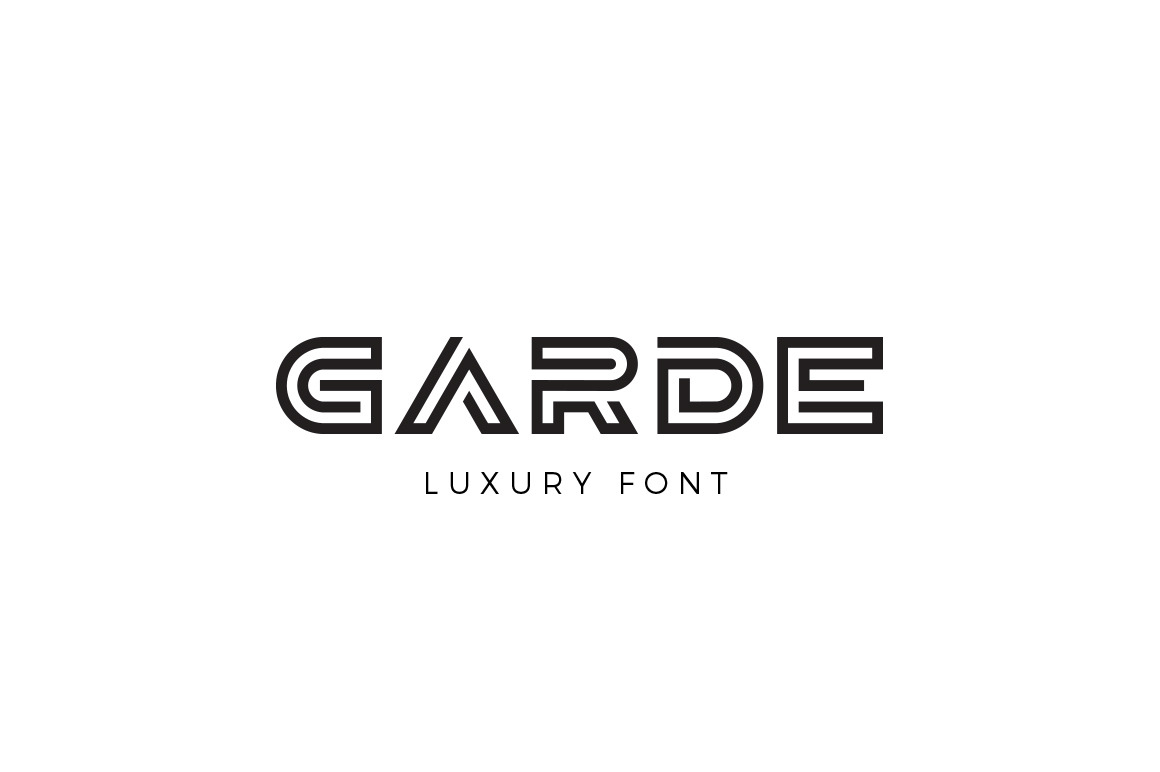
GARDE font
GARDE Font is perfect for avant-garde branding projects, contemporary art gallery signage, modern fashion campaigns, architectural firm identities, cutting-edge editorial layouts, progressive web typography, innovative packaging design, and experimental advertising materials. This striking typeface works brilliantly in both digital applications and print media where artistic innovation and forward-thinking design are central to the visual message.
What makes GARDE Font so exciting is its bold geometric construction and avant-garde aesthetic that pushes the boundaries of conventional typography while maintaining functional readability. The font features distinctive angular letterforms with sharp edges, innovative character relationships, and modernist influences that create a powerful visual statement. Its revolutionary design approach and artistic personality make it perfect for brands seeking to communicate creativity, innovation, and progressive thinking while establishing a strong visual identity that stands apart from traditional typography.
The GARDE Font family includes multiple stylistic variations from regular to ultra-bold weights, along with experimental alternates and artistic ligatures. Each style maintains the typeface's avant-garde character while offering comprehensive character sets including contemporary numerals, modernist punctuation marks, and special symbols designed to enhance creative and artistic communications across various cultural contexts.
This extraordinary typeface represents the perfect fusion of artistic expression and practical typography for contemporary creative industries. Whether you're developing gallery brand identities, creating fashion editorial content, or designing architectural presentations, GARDE Font Free Download delivers the innovative edge and versatility needed to capture attention in competitive creative markets. The font's modernist heritage makes it particularly effective for design studios, contemporary art spaces, fashion brands, and cultural institutions celebrating progressive artistic vision.
The precisely crafted geometric relationships and optimized proportions in GARDE Font ensure striking visual impact while maintaining clear communication across all applications. Its commanding artistic presence makes it ideal for headlines, titles, and branding where its full avant-garde character can create memorable impressions and establish immediate association with creativity, innovation, and cutting-edge design thinking.